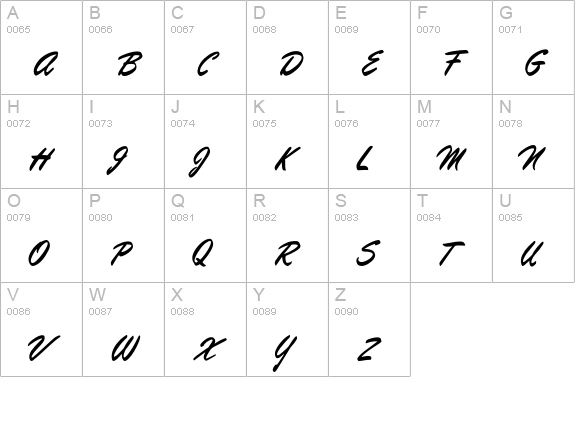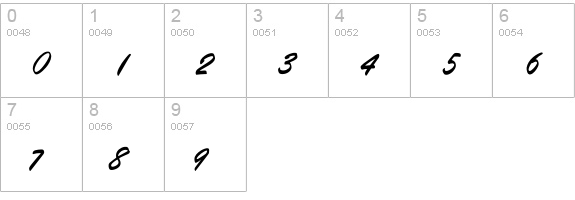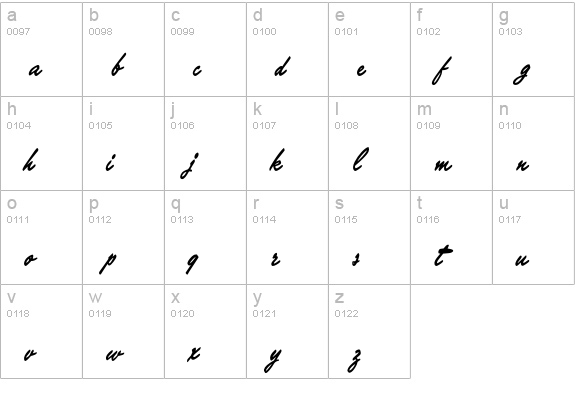
Marcanton Font Details
Introducing Marcanton, a stunningly elegant font that effortlessly captures the essence of sophistication and modernity. With its sleek lines and impeccable curves, Marcanton exudes a timeless charm that is perfect for any design project. Designed with meticulous attention to detail, Marcanton offers a versatile range of styles that can adapt to various creative needs. Whether you're crafting a logo, designing a website, or creating eye-catching headlines, this font is sure to make a lasting impression. But what sets Marcanton apart from other fonts is not just its unparalleled beauty and versatility, but also its accessibility. We believe that great design should be available to everyone, which is why Marcanton is offered as a free download at FontsMarket.com. By making Marcanton freely available, we hope to empower designers, entrepreneurs, and creatives alike to bring their visions to life without the constraints of cost. Now, you can effortlessly elevate your projects with the elegance and sophistication that Marcanton embodies, all without breaking the bank. So why wait? Discover the power of Marcanton and unlock a world of design possibilities. Download this remarkable font for free at FontsMarket.com and let your creativity flourish.